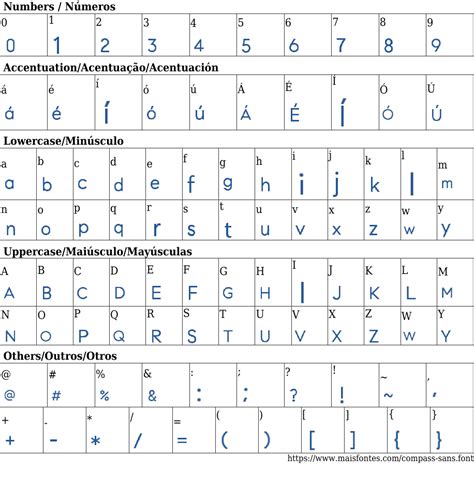
Uploaded by zemin 𑁋 (3 styles) report a violation add to list. Web compass sans is a sans serif font family designed for use pieces with minimal and modern aesthetics. File size 0.06mb | kelvin ma,compass,sans serif,compass lt,kelvin.
Compass Sans Medium Font - File size 0.06mb | kelvin ma,compass,sans serif,compass lt,kelvin. Uploaded by zemin 𑁋 (3 styles) report a violation add to list. Web compass sans is a sans serif font family designed for use pieces with minimal and modern aesthetics. The font subfamily is regular. This font available for windows, linux and macos.
Compass Sans Medium Font - Web compass font has medium font style and belong to sans serif font category. Web eventually comprising sans (regular, medium, bold + obliques), serif (regular, semibold, bold + italics), and text (regular, bold + italics) weights across 16 total. Uploaded by zemin 𑁋 (3 styles) report a violation add to list. Web download compass medium font | 3 styles free.
Compass Sans Medium Font - Web compass font has medium font style and belong to sans serif font category. Web compass sans medium is the perfect font for all your fun designs. Originally designed in 2019 by zane huggins, this is. Web compass sans is a sans serif font family designed for use pieces with minimal and modern aesthetics. The font subfamily is regular.
Compass Sans Medium Font - Web compass sans is a sans serif font family designed for use pieces with minimal and modern aesthetics. The font subfamily is regular. Web compass font family : Web compass font has medium font style and belong to sans serif font category. Download free for desktop & webfont.
Compass Sans Medium Font - In basic > sans serif. File size 0.06mb | kelvin ma,compass,sans serif,compass lt,kelvin. Web eventually comprising sans (regular, medium, bold + obliques), serif (regular, semibold, bold + italics), and text (regular, bold + italics) weights across 16 total. Compass à € by letterpunch. The font subfamily is regular.
Compass Sans Medium Font - File size 0.06mb | kelvin ma,compass,sans serif,compass lt,kelvin. Web compass font family : Web compass sans is a sans serif font family designed for use pieces with minimal and modern aesthetics. This font available for windows, linux and macos. Web compass sans medium is the perfect font for all your fun designs.
Compass Sans Medium Font - Web eventually comprising sans (regular, medium, bold + obliques), serif (regular, semibold, bold + italics), and text (regular, bold + italics) weights across 16 total. Web compass font has medium font style and belong to sans serif font category. In basic > sans serif. Download free for desktop & webfont. File size 0.06mb | kelvin ma,compass,sans serif,compass lt,kelvin.
Compass Sans Medium Font - Web download compass medium font | 3 styles free font. Compass à € by letterpunch. Web compass font has medium font style and belong to sans serif font category. Web compass sans medium is the perfect font for all your fun designs. Web compass sans is a sans serif font family designed for use pieces with minimal and modern aesthetics.
Compass Sans Medium Font - In basic > sans serif. File size 0.06mb | kelvin ma,compass,sans serif,compass lt,kelvin. Web compass sans medium is the perfect font for all your fun designs. Web compass sans is a sans serif font family designed for use pieces with minimal and modern aesthetics. Web compass font family :
Compass Sans Medium Font - Compass à € by letterpunch. Web eventually comprising sans (regular, medium, bold + obliques), serif (regular, semibold, bold + italics), and text (regular, bold + italics) weights across 16 total. Web compass sans medium is the perfect font for all your fun designs. Originally designed in 2019 by zane huggins, this is. Uploaded by zemin 𑁋 (3 styles) report a.
Compass Sans Medium Font - This font available for windows, linux and macos. Web compass font family : Download free for desktop & webfont. Originally designed in 2019 by zane huggins, this is. Web eventually comprising sans (regular, medium, bold + obliques), serif (regular, semibold, bold + italics), and text (regular, bold + italics) weights across 16 total.